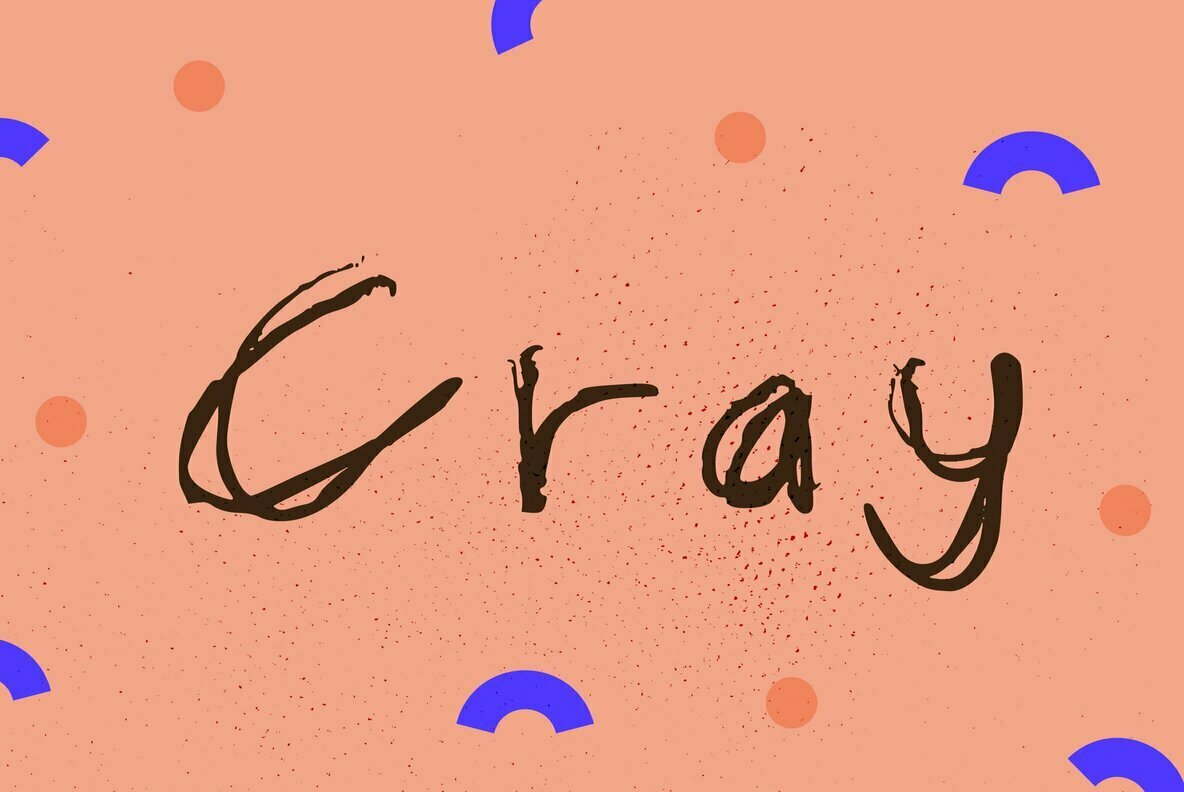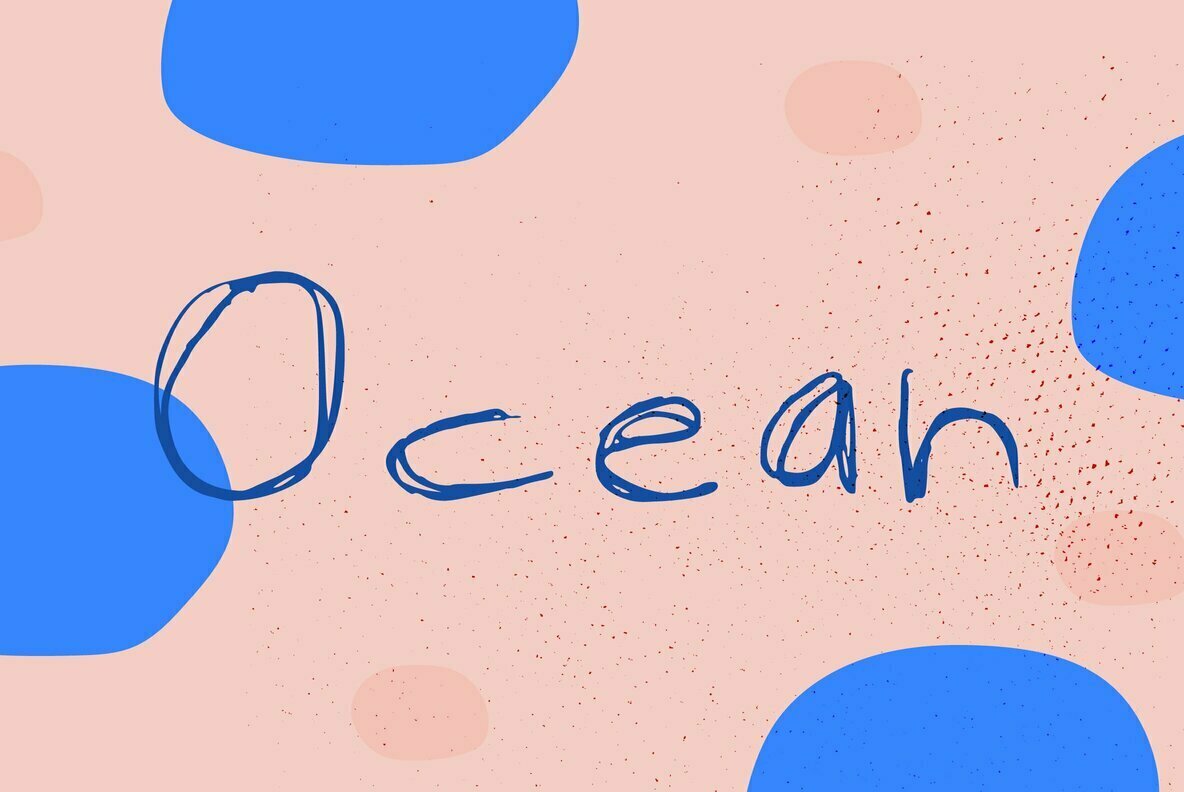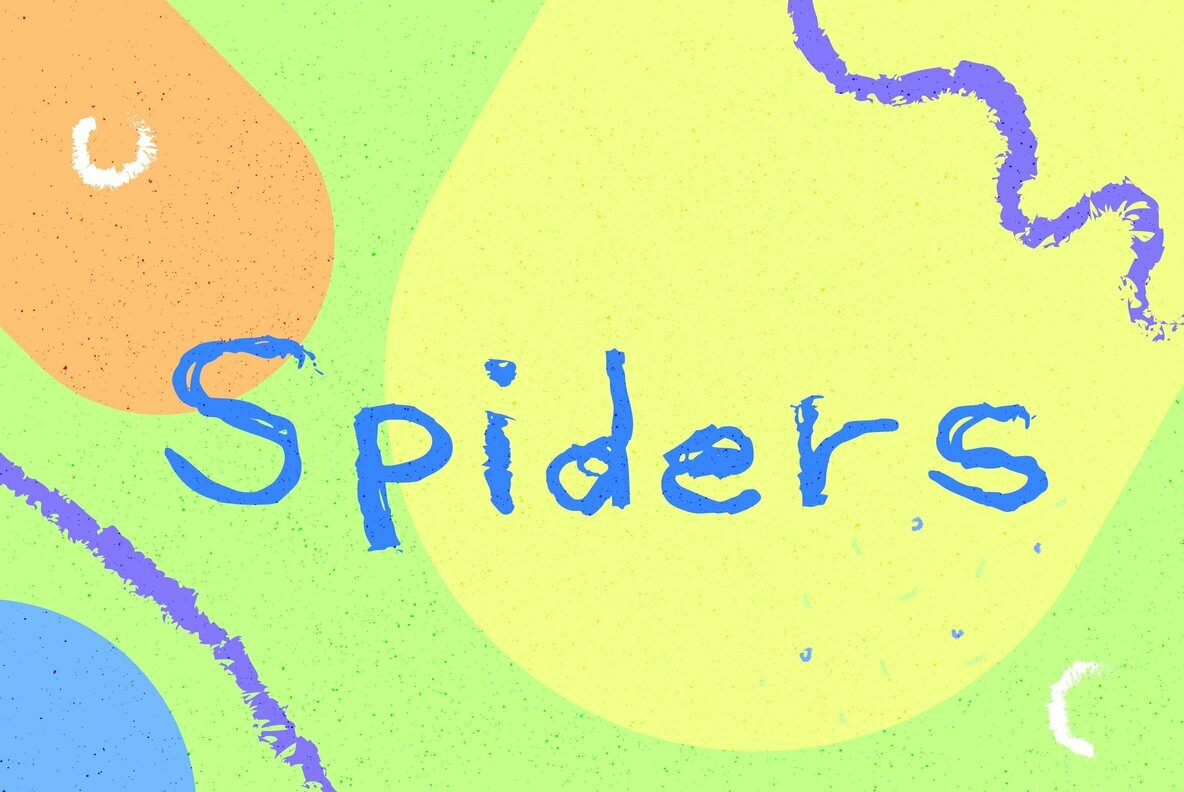
Now Spiders Font
Creepy Halloween dark style font with spider like features to really give any Arachnophobia the chills! Used for Halloween or dark design.